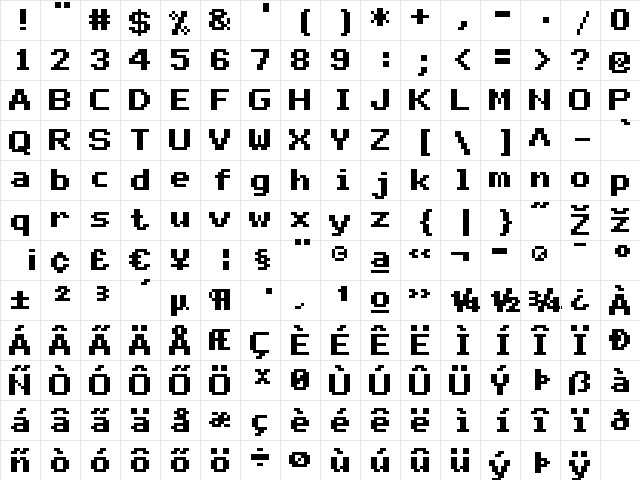
mono 07_65 Regular
| Foundry | Adobe Systems Incorporated |
| Designer | Craig Kroeger |
Design Context for mono 07_65 Typeface
mono 07_65 uses fixed-width spacing throughout, giving it the structured, systematic character associated with coding environments and technical documentation.
A natural fit for code editors, technical documentation, developer-focused branding, and terminal-inspired UI.